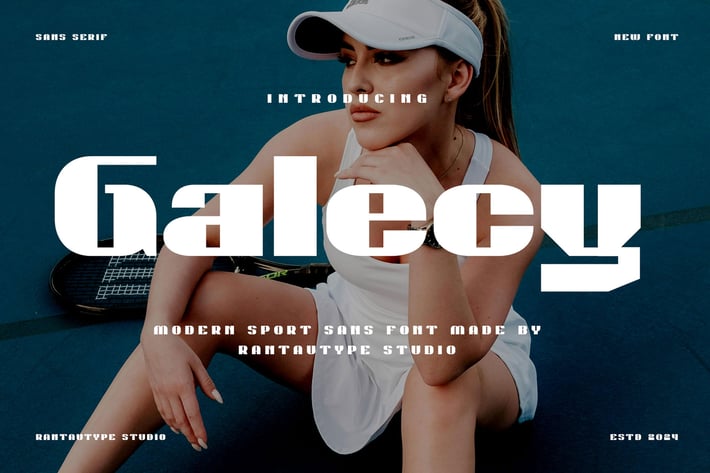
Galecy Modern Sport Font
Galecy is modern sport with bold contrast shape. Galecy bring strong character and powerfull shape to make you design project out standing! Galecy is a perfectly choice for any creative endeavor, chic, lifestyle design such as logotype, advertisements, watermark on photography, stationery, branding project, display and magazine, invitation, corporate brand, product design, label, business project and many other project with modern or sport touch.